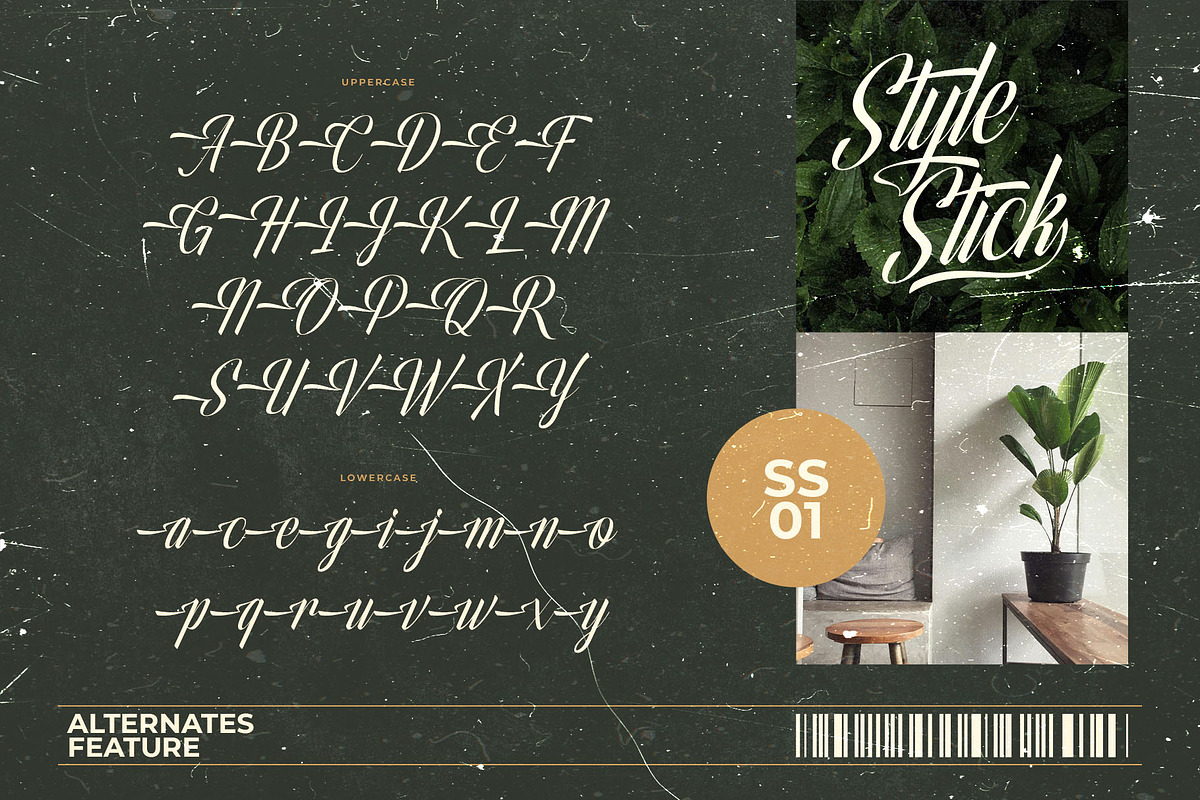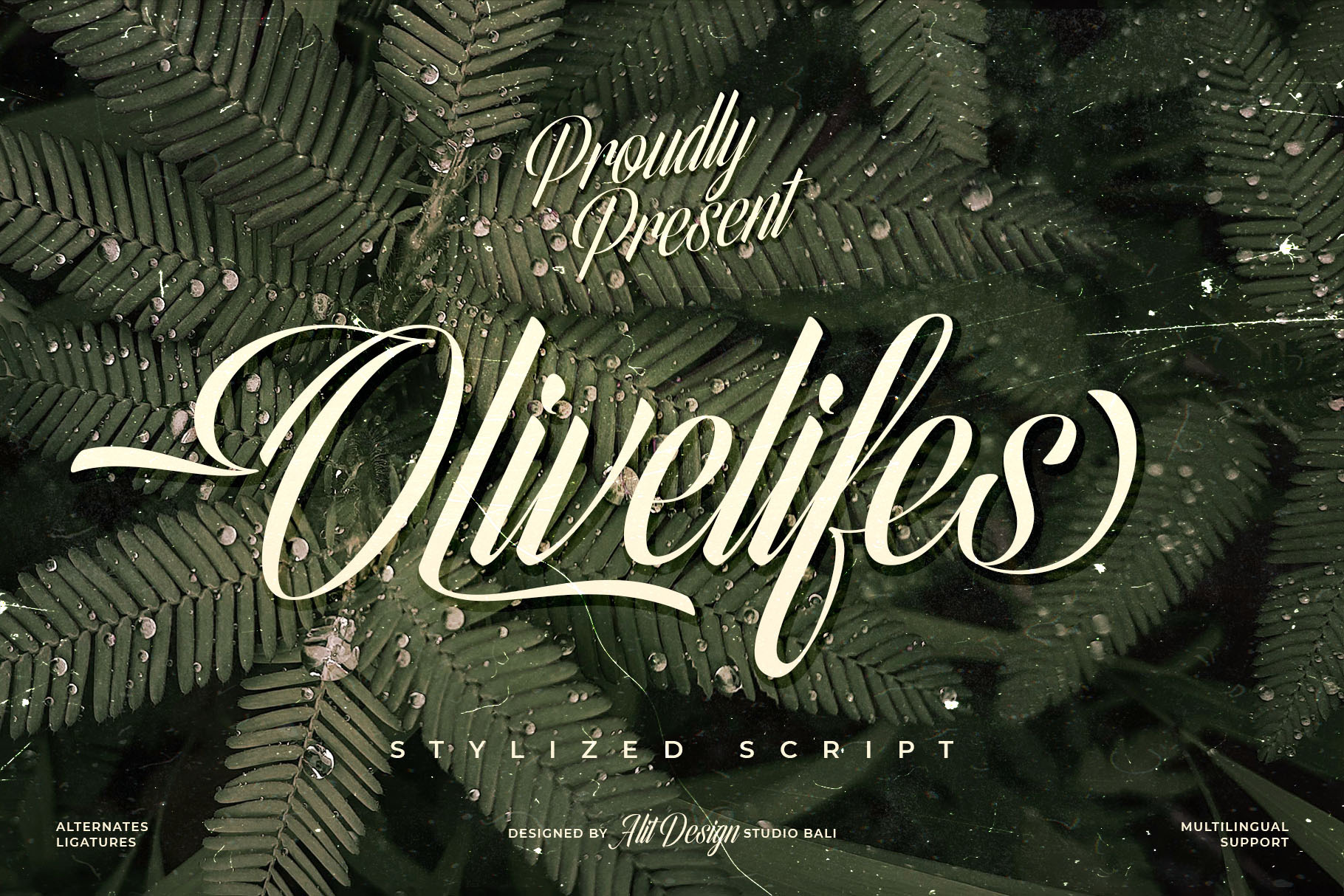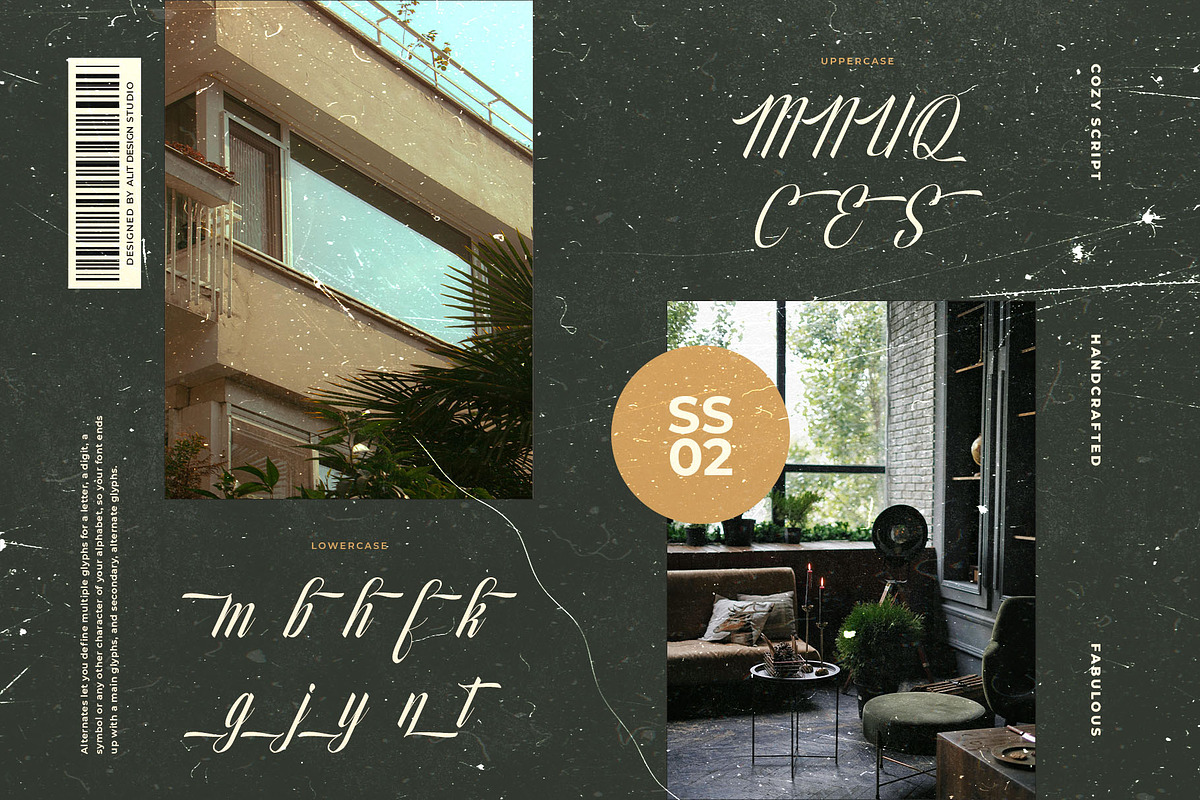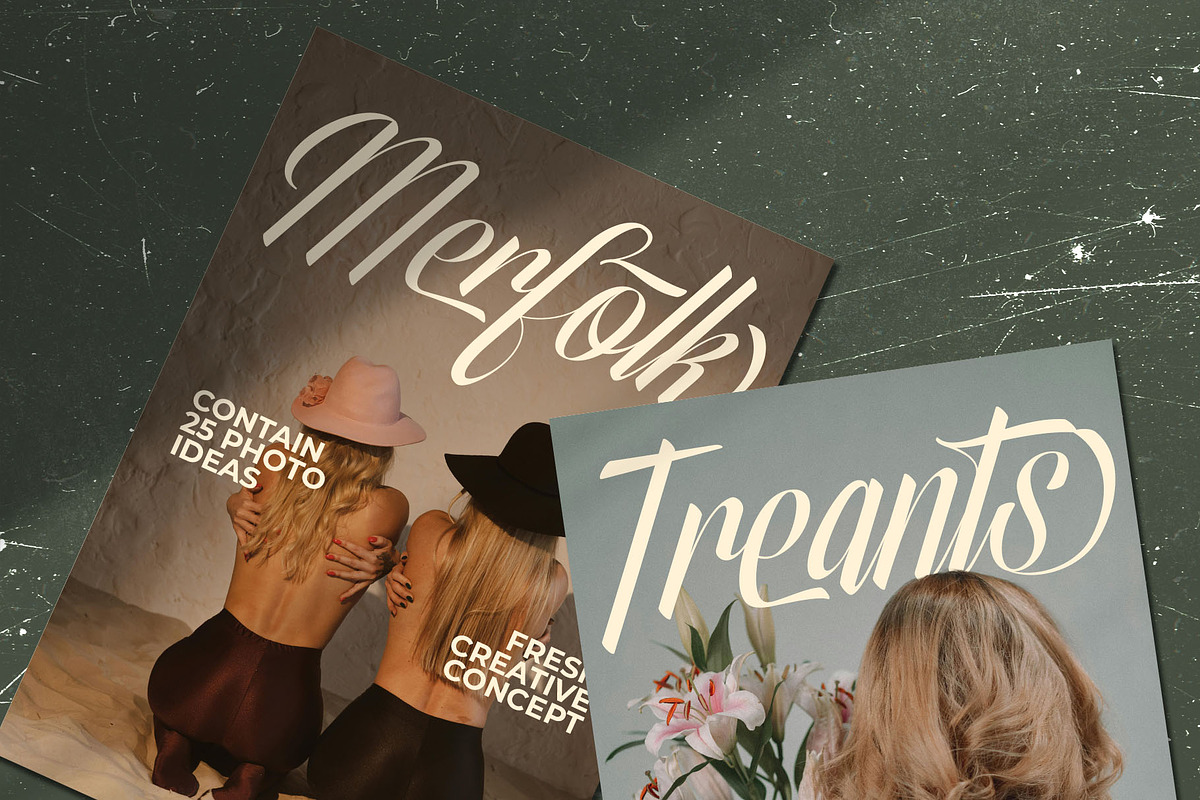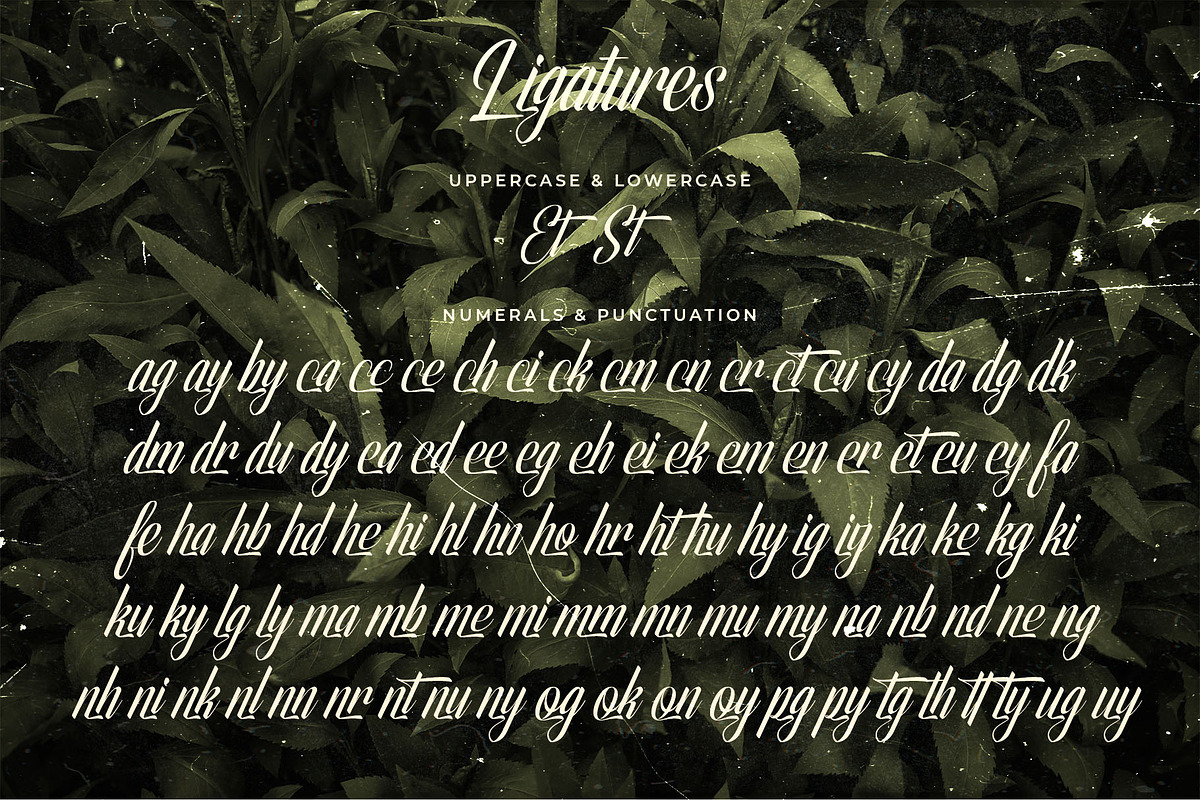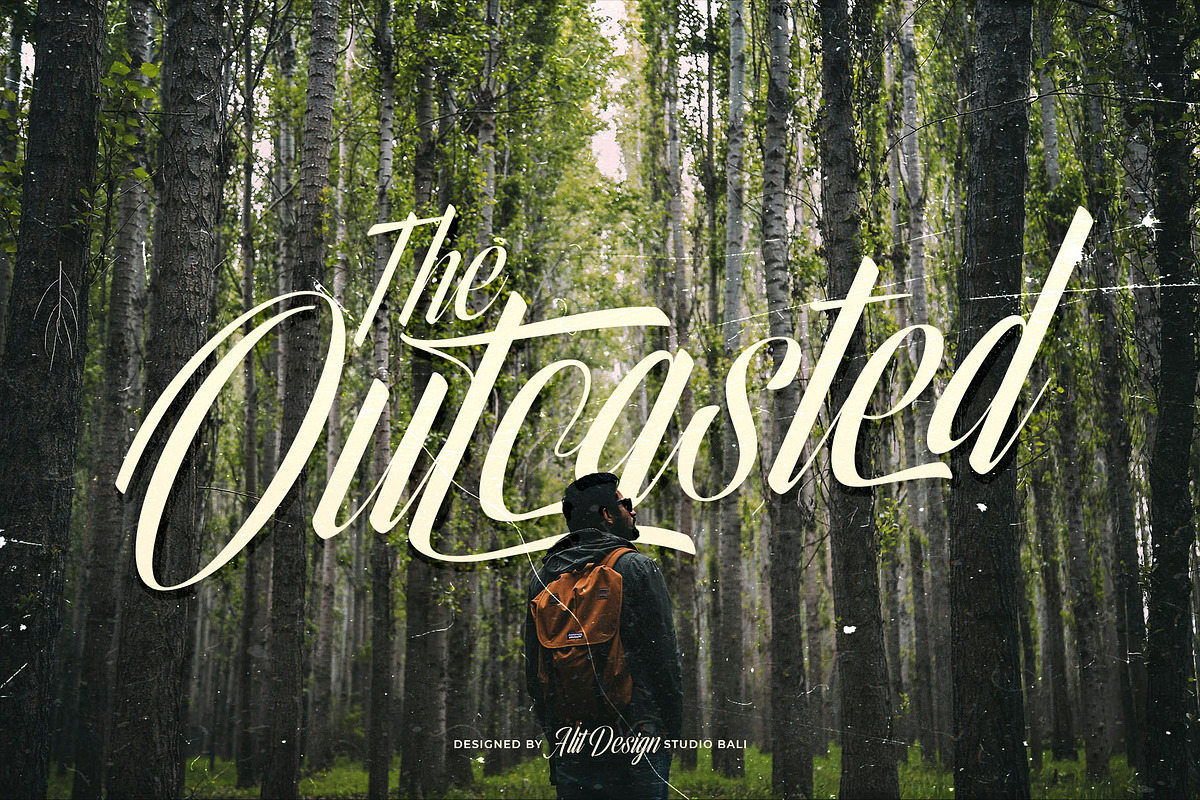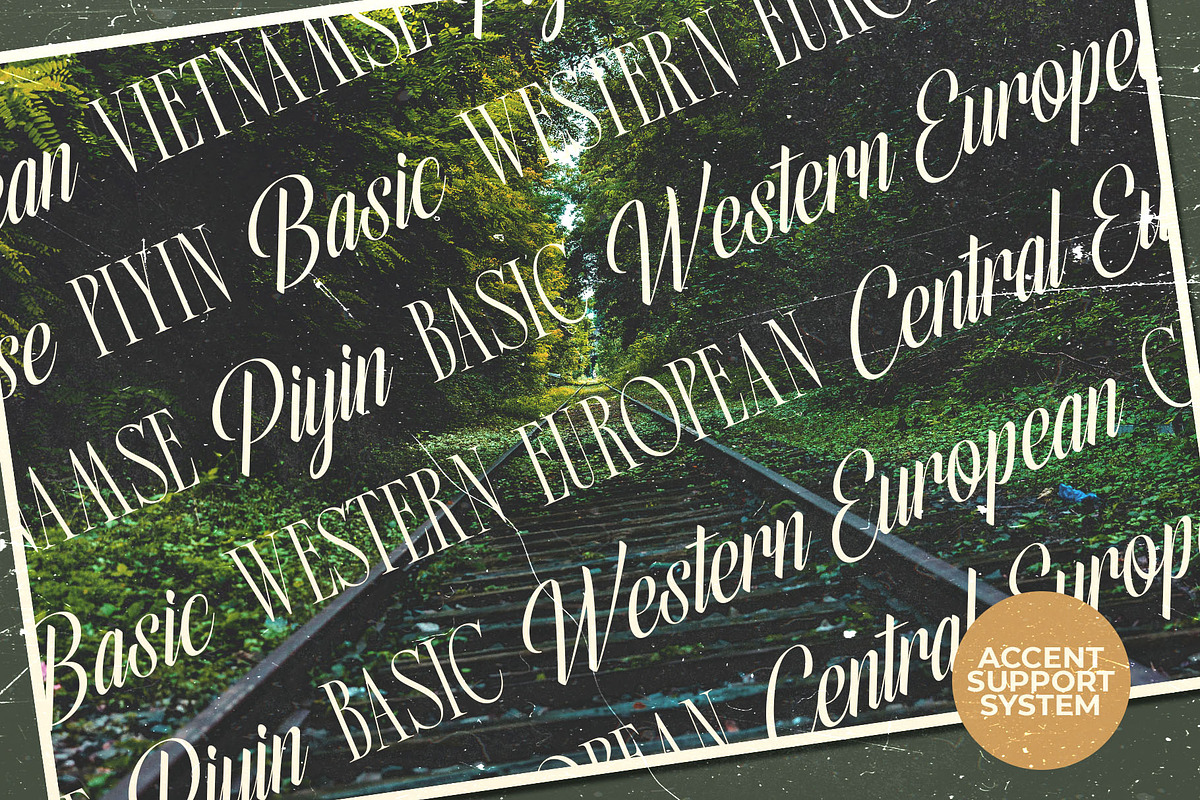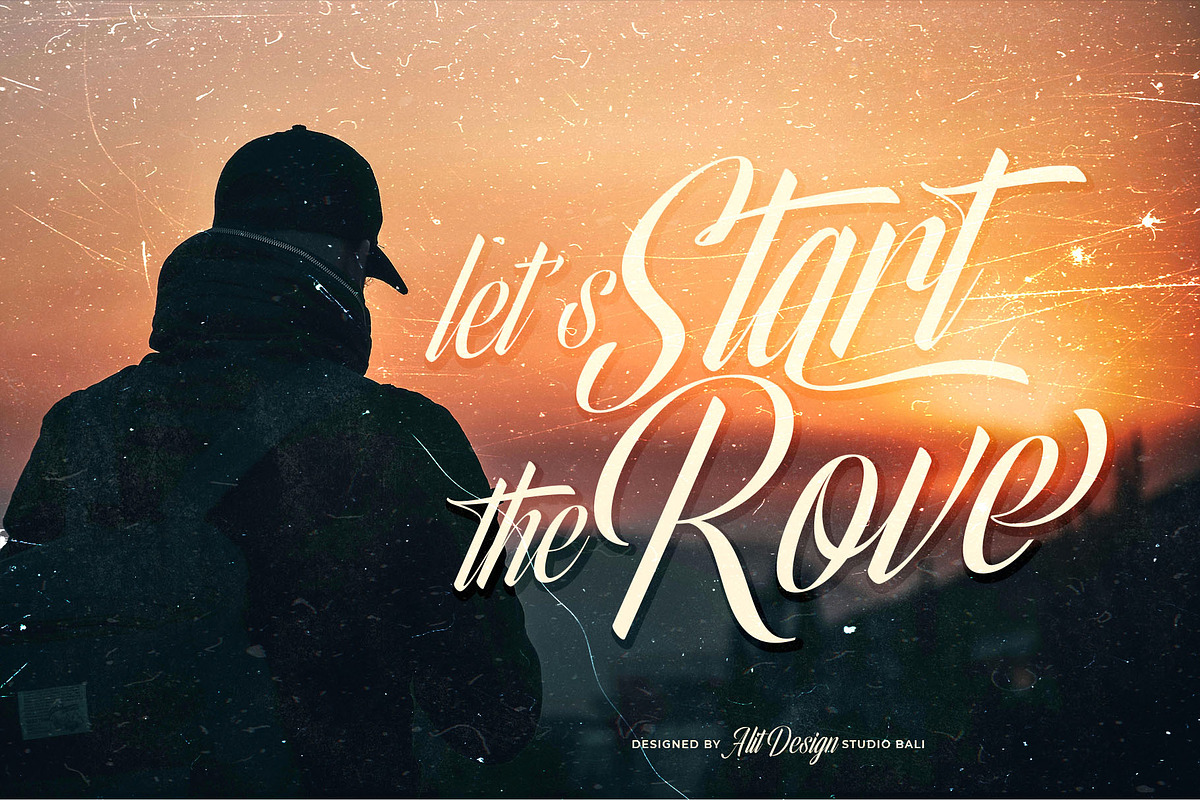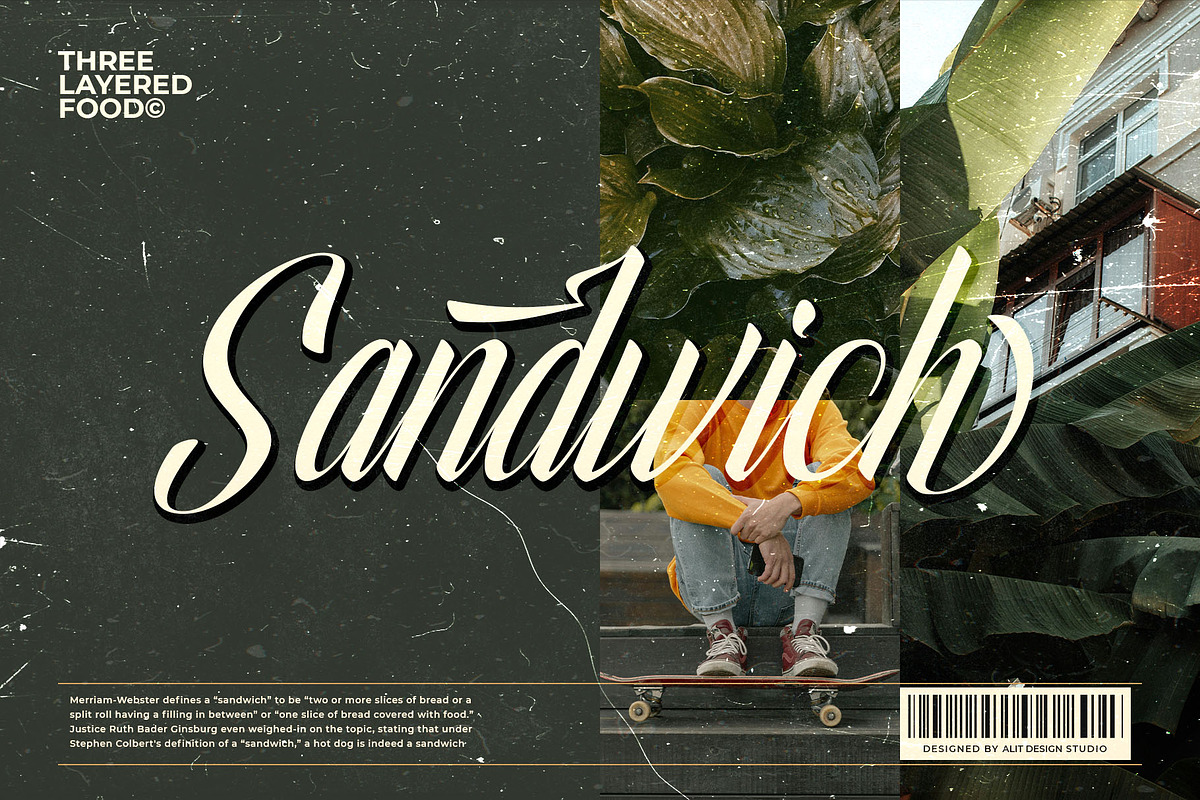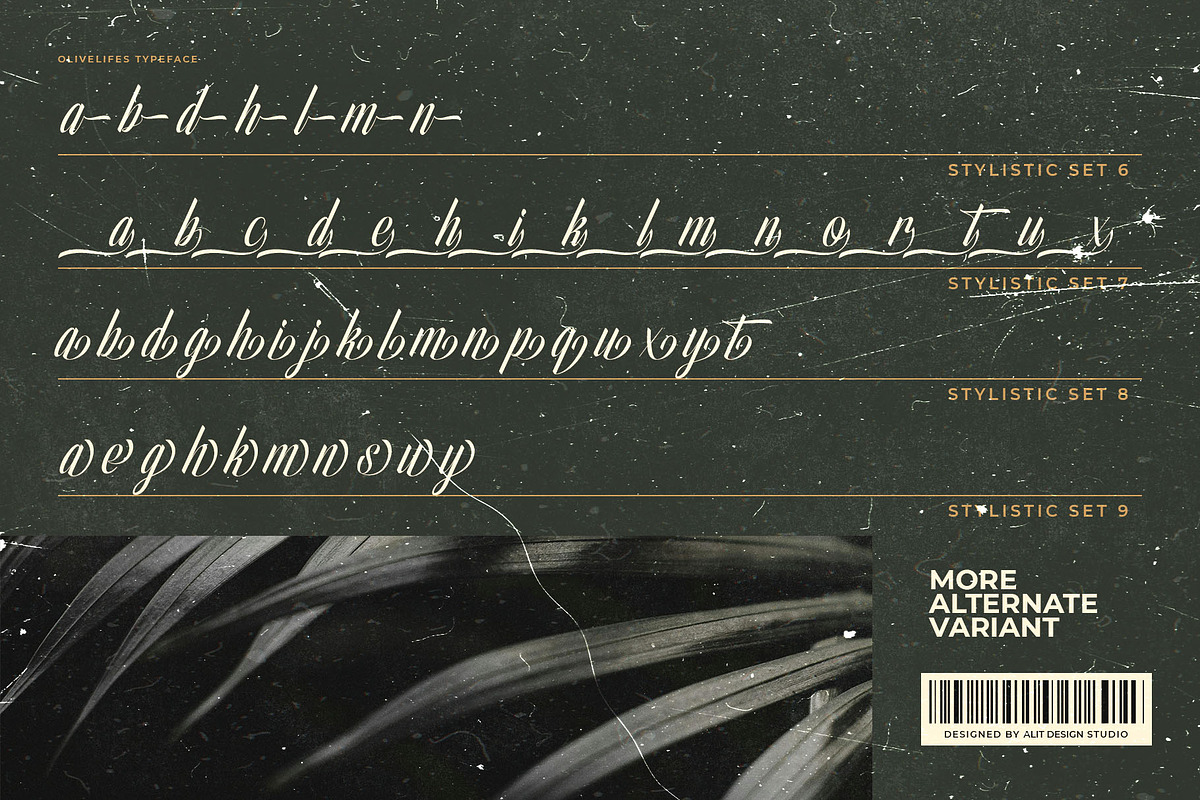
Olivelifes Script Font
Introducing Olivelifes Script Font – a fierce, speedy, and dynamic typeface designed to bring a bold, energetic flair to your projects. With its sleek curves, stunning ligatures, and elegant swashes, Olivelifes Script Font captures the essence of motion and style in every stroke.
- Fierce Script: Bold and striking, Olivelifes Script Font is perfect for making a powerful statement.
- Speedy & Dynamic: Inspired by the swift movement, this font conveys a sense of speed and agility.
- Ligature Magic: Enjoy seamless connections between letters with beautifully crafted ligatures that add a touch of sophistication.
- Elegant Swashes: Enhance your text with graceful swashes, giving a luxurious and stylish finish to your designs.
- Comprehensive Character Set: With a whopping 711 characters, Olivelifes Script Font offers extensive language support and versatile typographic options.
- Branding and logo design
- Advertising and promotional materials
- Social media graphics and posts
- Wedding invitations and greeting cards
- Apparel design and merchandise
- Dynamic website headers and banners
Bring your creative projects to life with the high-energy and captivating style of Olivelifes Script Font. Make your message roar with fierce elegance and unstoppable speed!